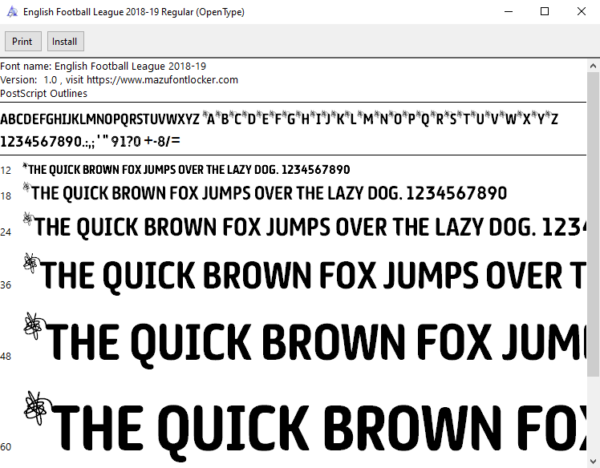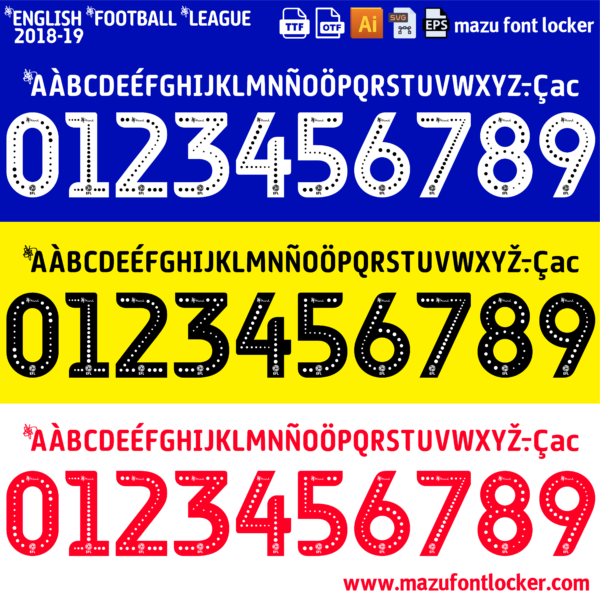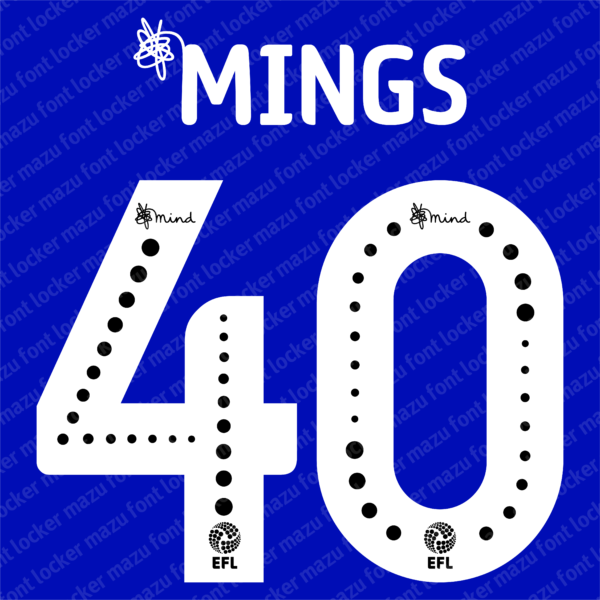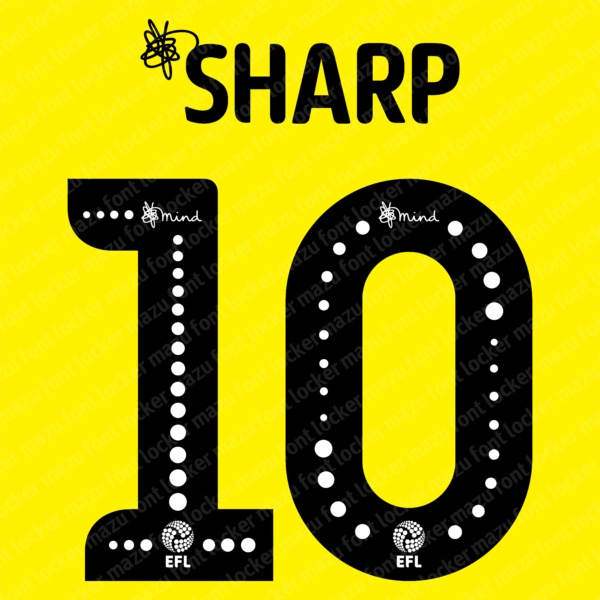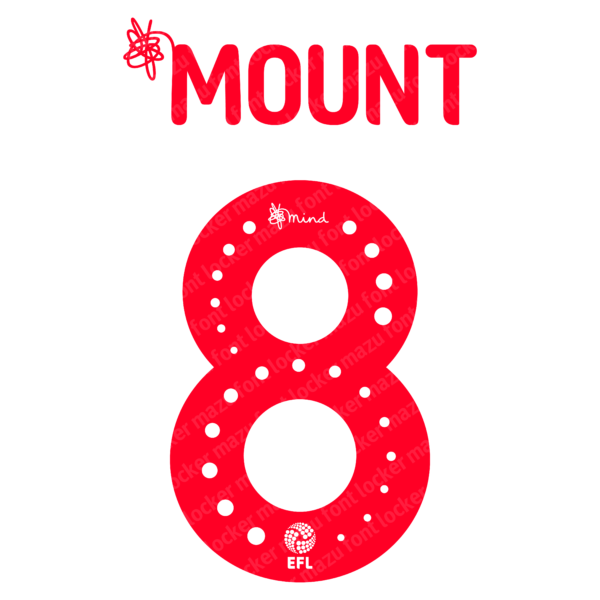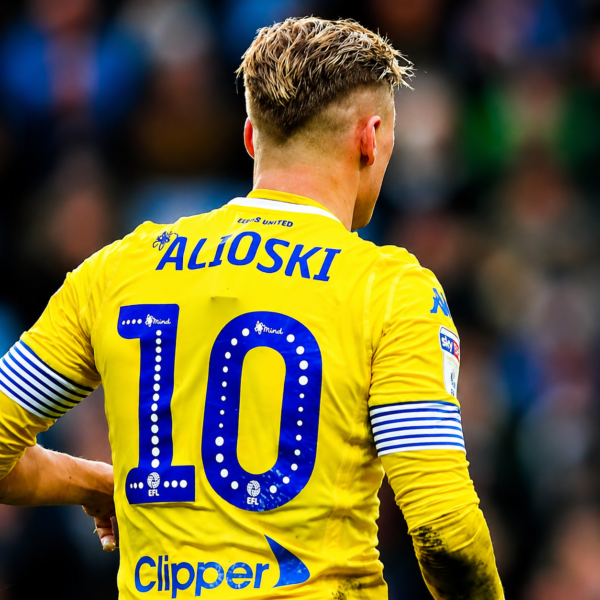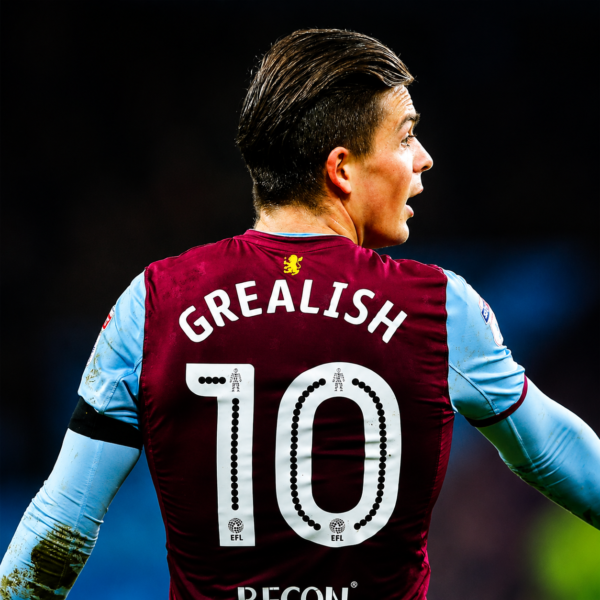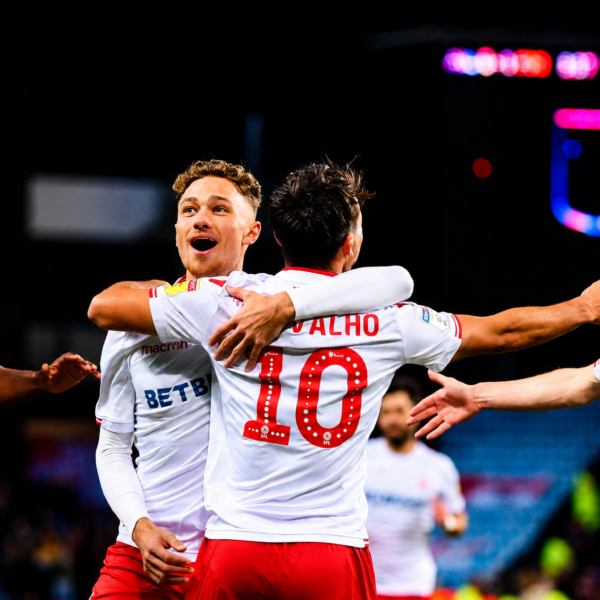
English Football League 2018-2019 Font – Epic Legendary Championship Masterpiece
Download this incredible English Football League 2018-2019 Font and bring the authentic spirit of the EFL Championship to your designs. The English Football League 2018-2019 Font perfectly captures the bold and dynamic typography used during one of the most exciting seasons in English football.
Whether you’re creating matchday posters, fan merchandise, social media graphics, or retro football content, the English Football League 2018-2019 Font delivers that premium, professional look with sharp numbers, strong lettering, and classic league styling. This high-quality vector font set is ideal for designers, football enthusiasts, and content creators who want to relive the passion and intensity of the 2018-2019 EFL campaign.
English Football League 2018-2019 Font Vector
The English Football League 2018-2019 Font is a premium, high-precision football jersey font vector meticulously engineered to capture the fearless energy, explosive passion, and electrifying identity of the English Football League’s unforgettable 2018-2019 season.
Inspired by the fierce competition, dramatic moments, and iconic performances across the Championship, League One, and League Two, this font unleashes a bold, majestic, and devastatingly powerful presence that radiates authentic EFL pride, rich heritage, and relentless competitive spirit. Every letter and number has been painstakingly recreated with razor-sharp precision to embody the vibrant colors, classic identity, and glorious legacy of the 2018-2019 campaign — one of the most thrilling seasons in modern EFL history.
Feel the roar of the terraces, the tension of promotion battles, and the glory of playoff nights. Ignite the passion. Unleash the legendary spirit of the English Football League 2018-2019.
• Authentic 2018-2019 English Football League jersey lettering style
The authentic lettering style helps recreate the classic look of the English Football League 2018-2019 kit with professional accuracy.
Unlike generic jersey fonts, this premium set is crafted with obsessive precision and breathtaking authentic detail. Every curve, proportion, and bold style is faithfully recreated from the original match lettering used across the English Football League 2018-2019 season.